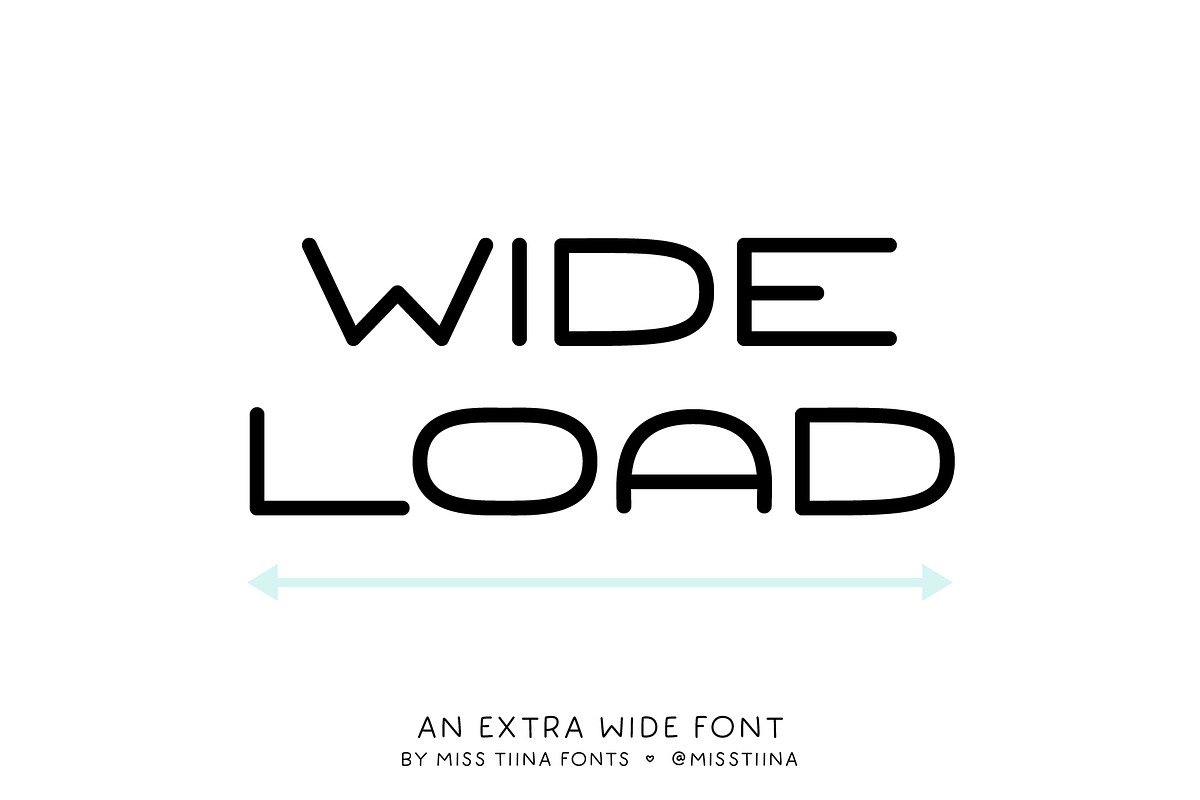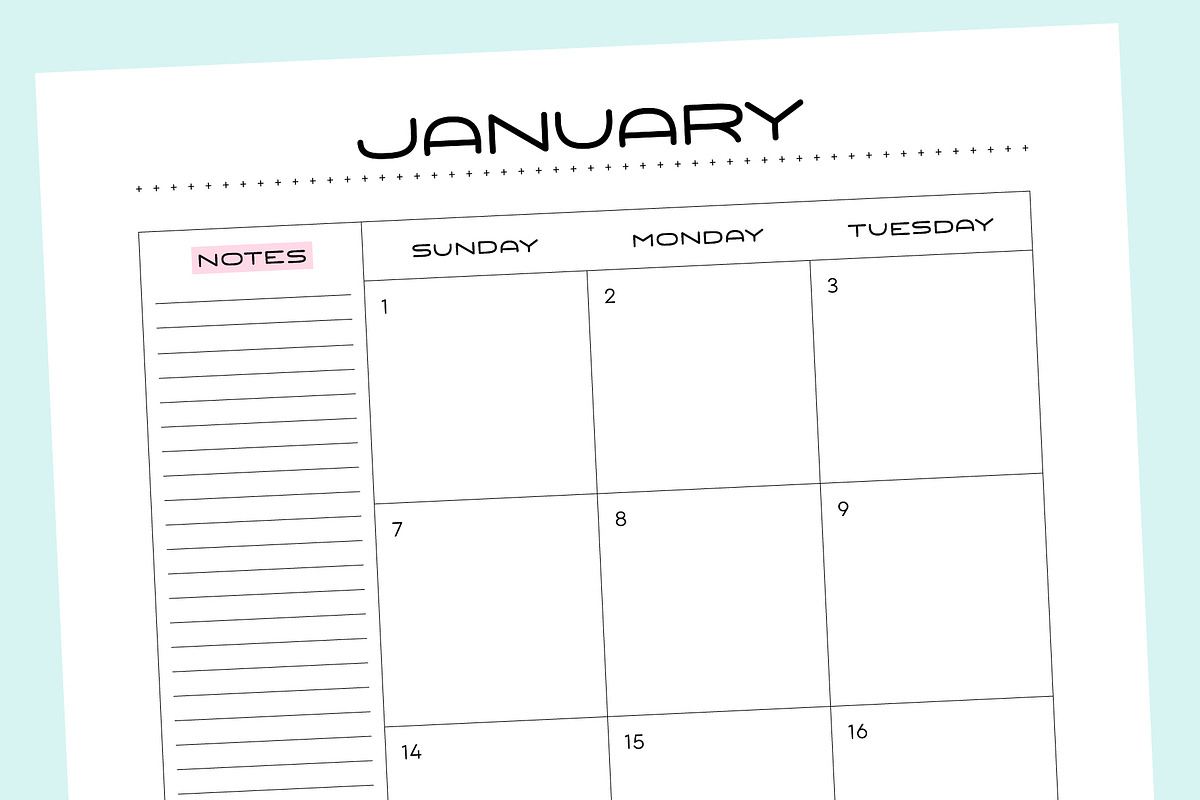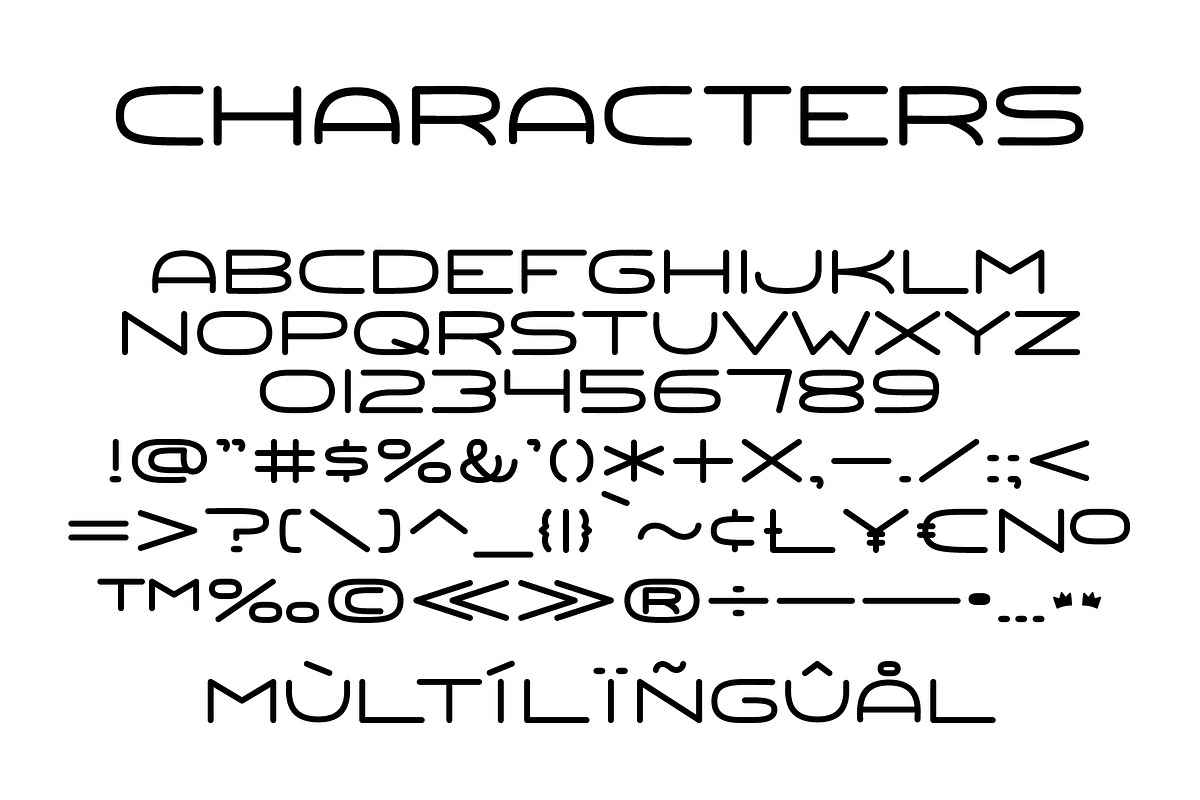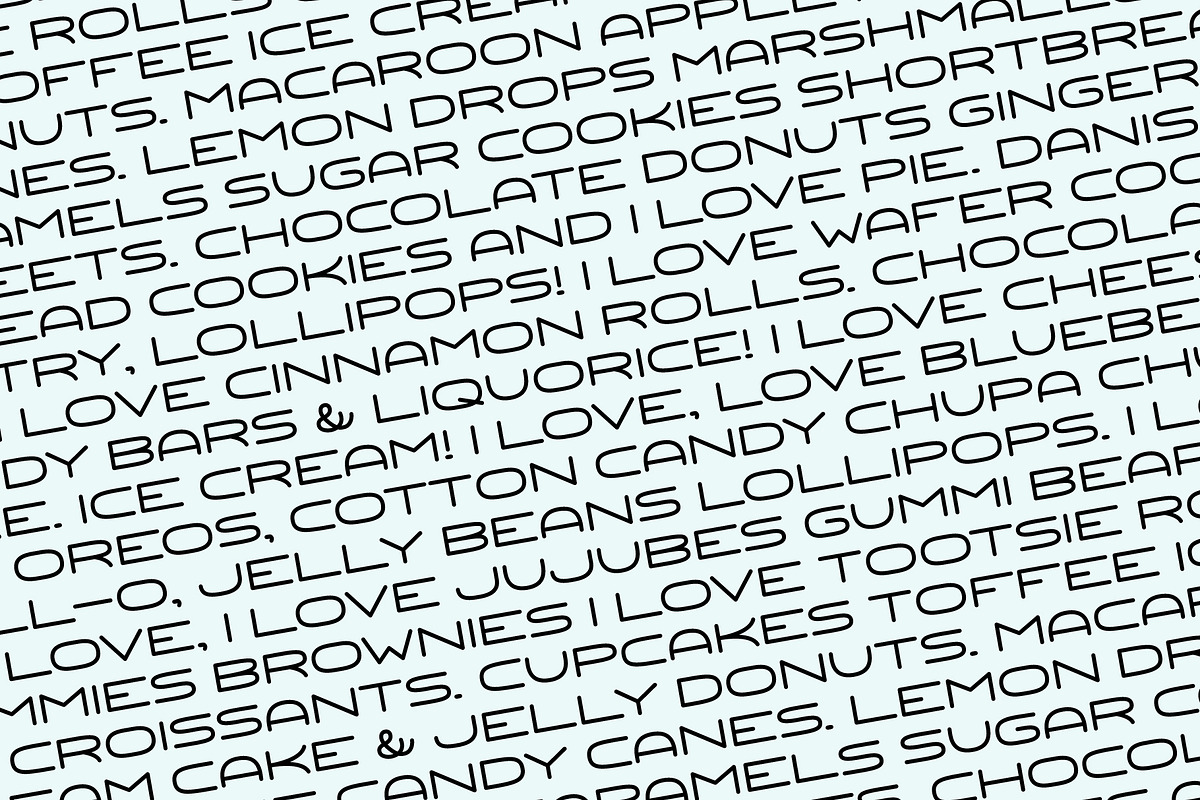
Wide Load Font
Discover the charm of Wide Load, an exceptionally broad all-caps font that flaunts versatility. Its unique width makes it an ideal choice for almost any purpose! Whether you're designing a bold logo or crafting eye-catching headlines, Wide Load offers a unique look that's sure to impress. With its distinctive breadth, it gives your words an undeniable presence, making every message unforgettable. Unleash your creativity with Wide Load, where broad is beautifully better!